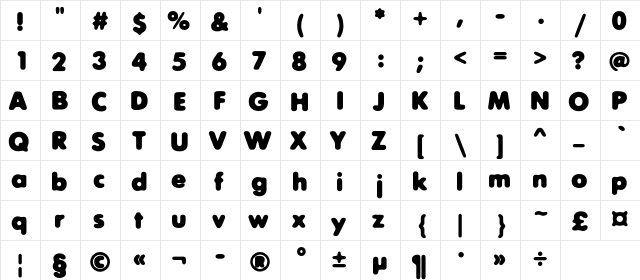
ExposureCThree Regular
Design Context for ExposureCThree Typeface
ExposureCThree is a composed and adaptable typeface that performs quietly and consistently across a wide range of design contexts.